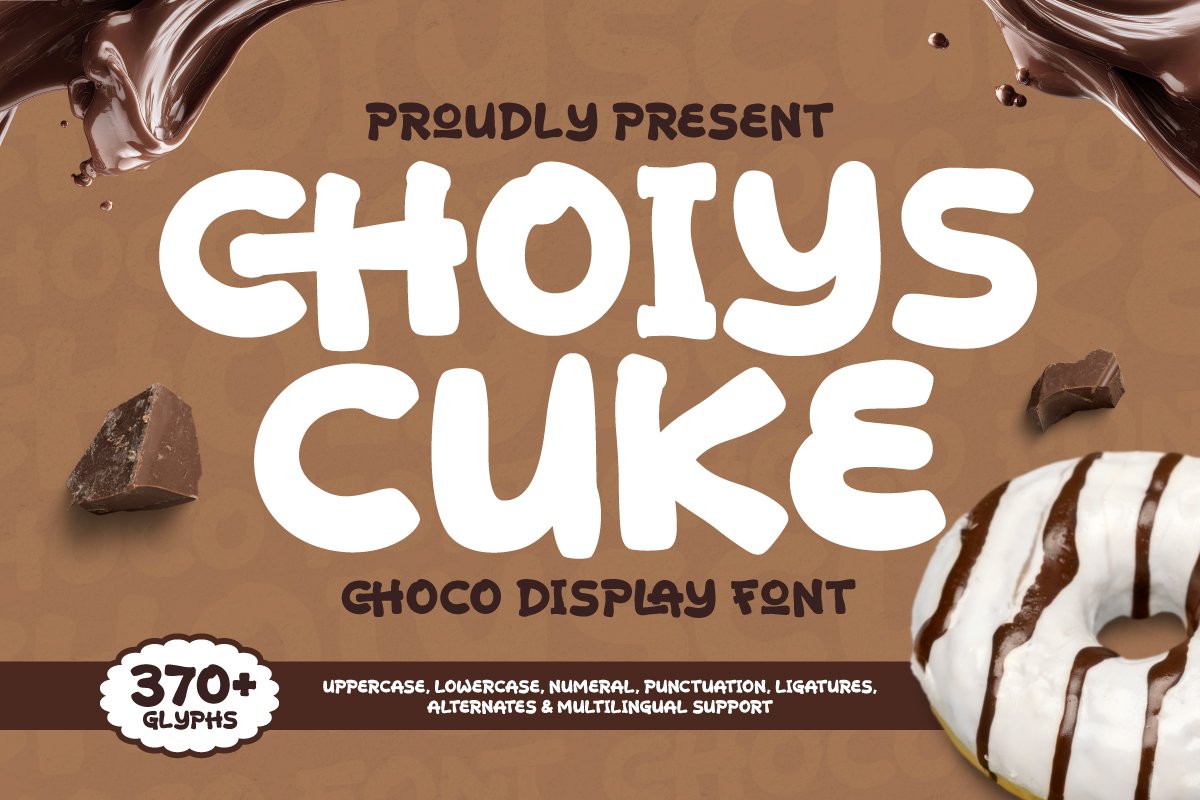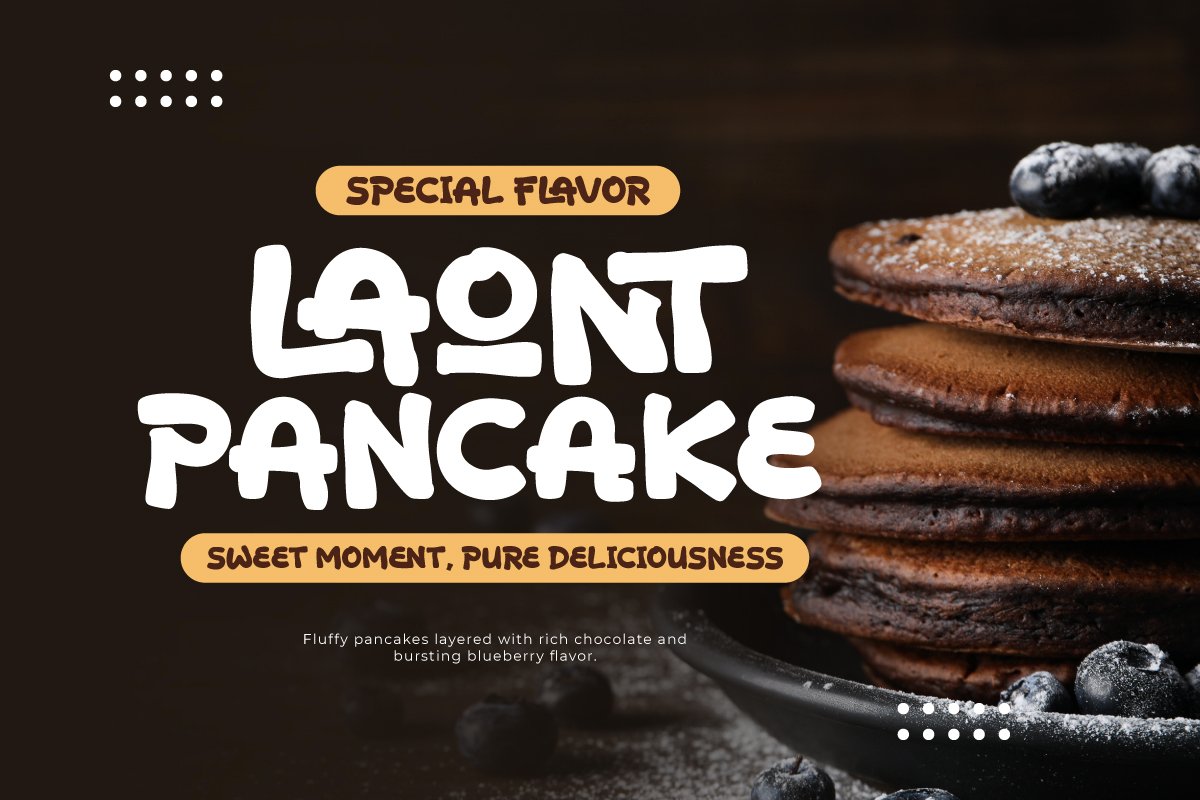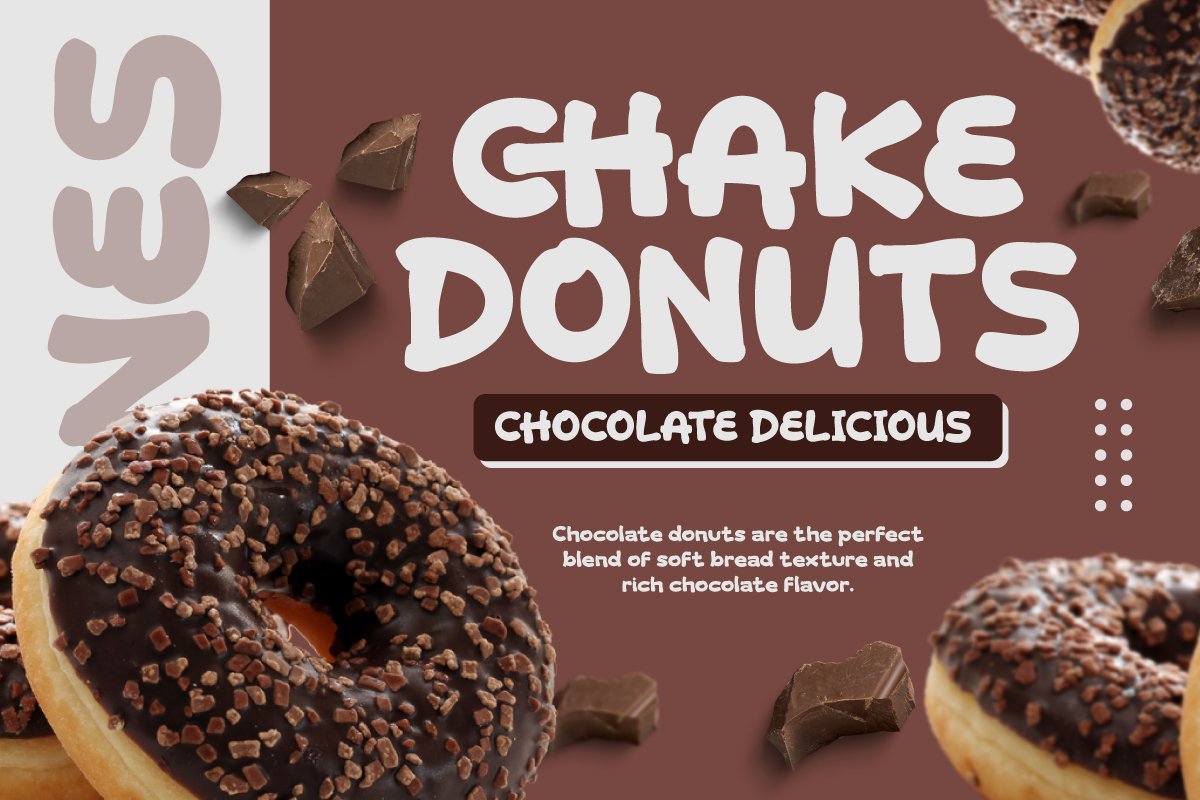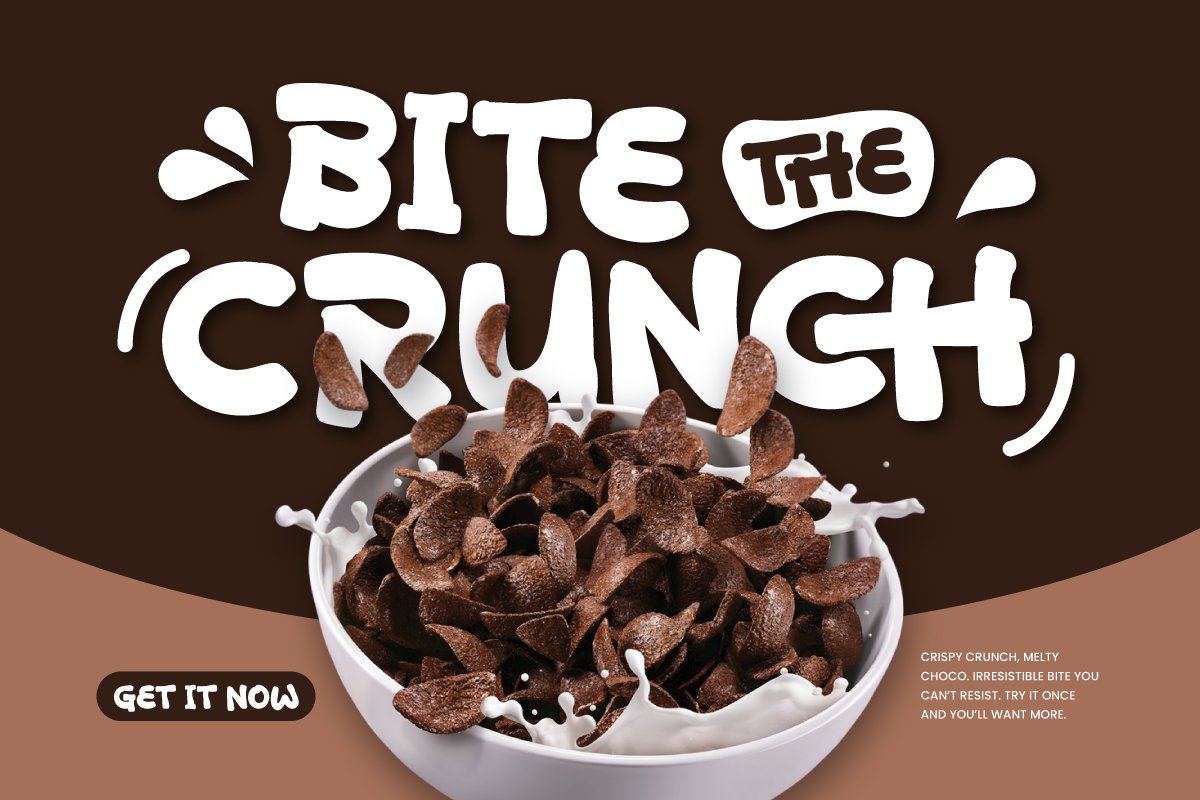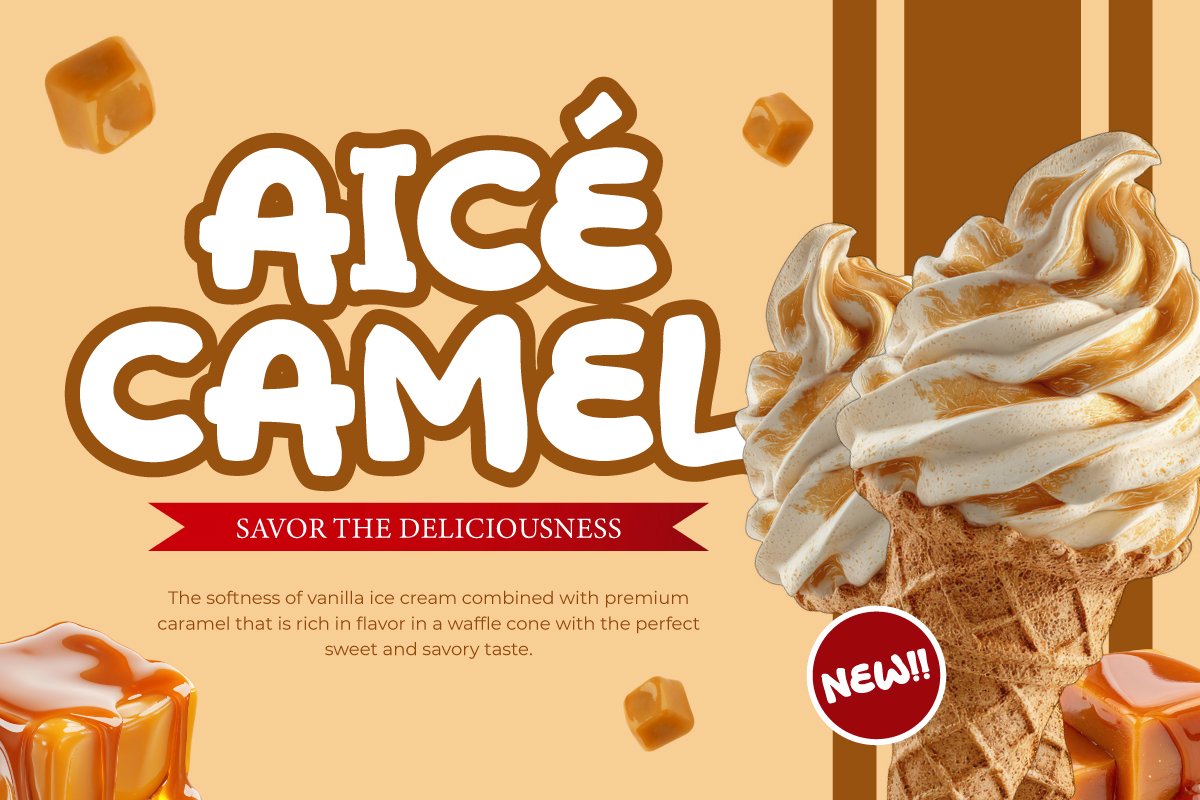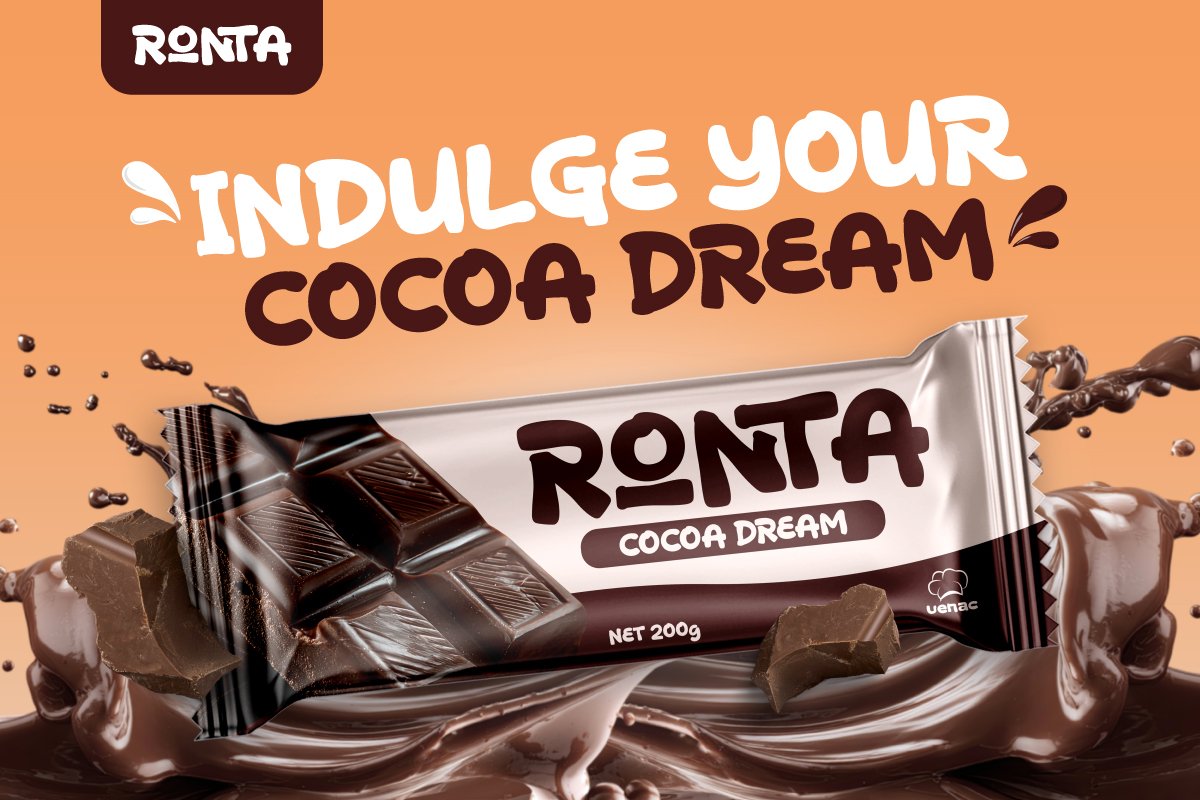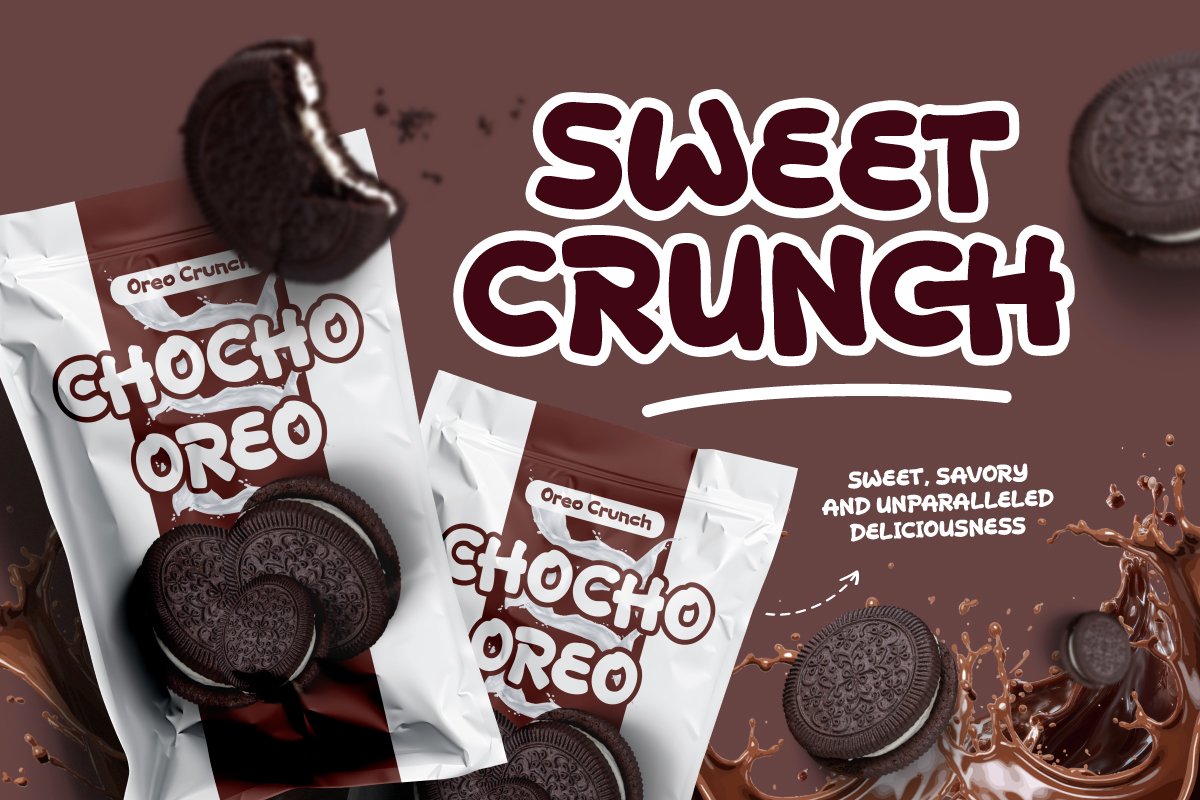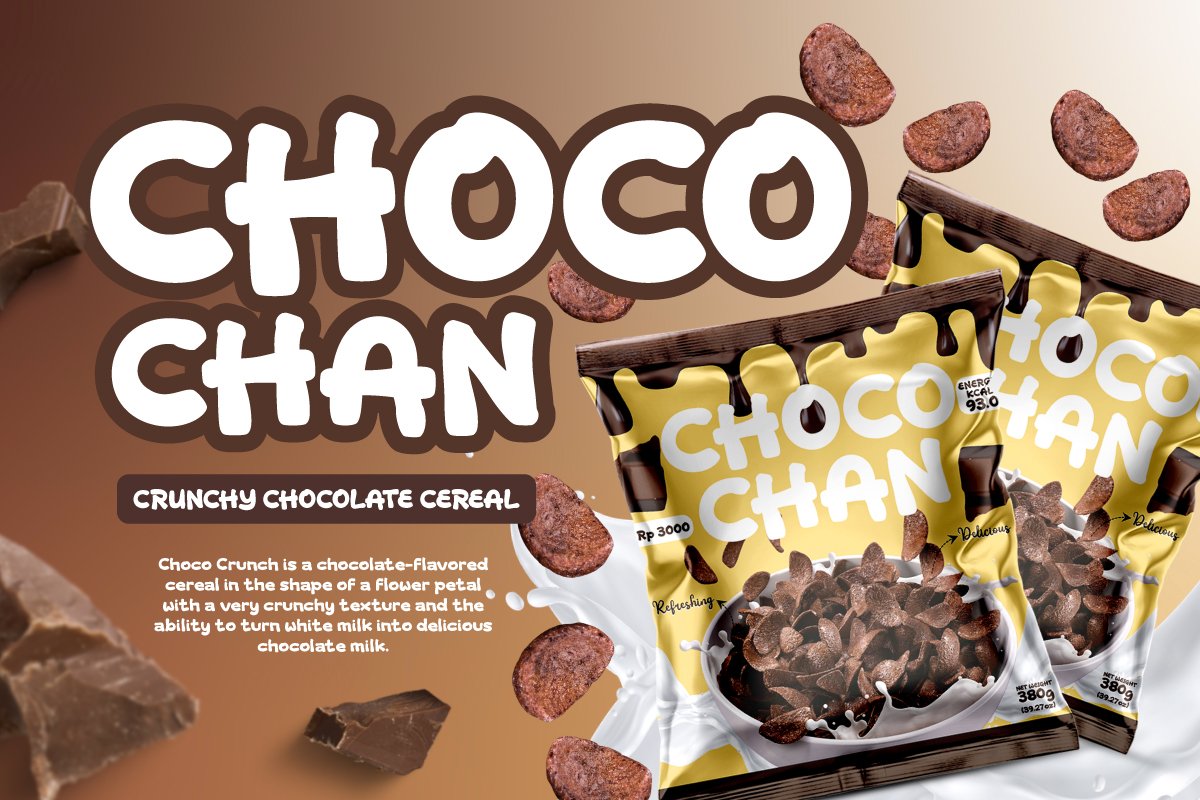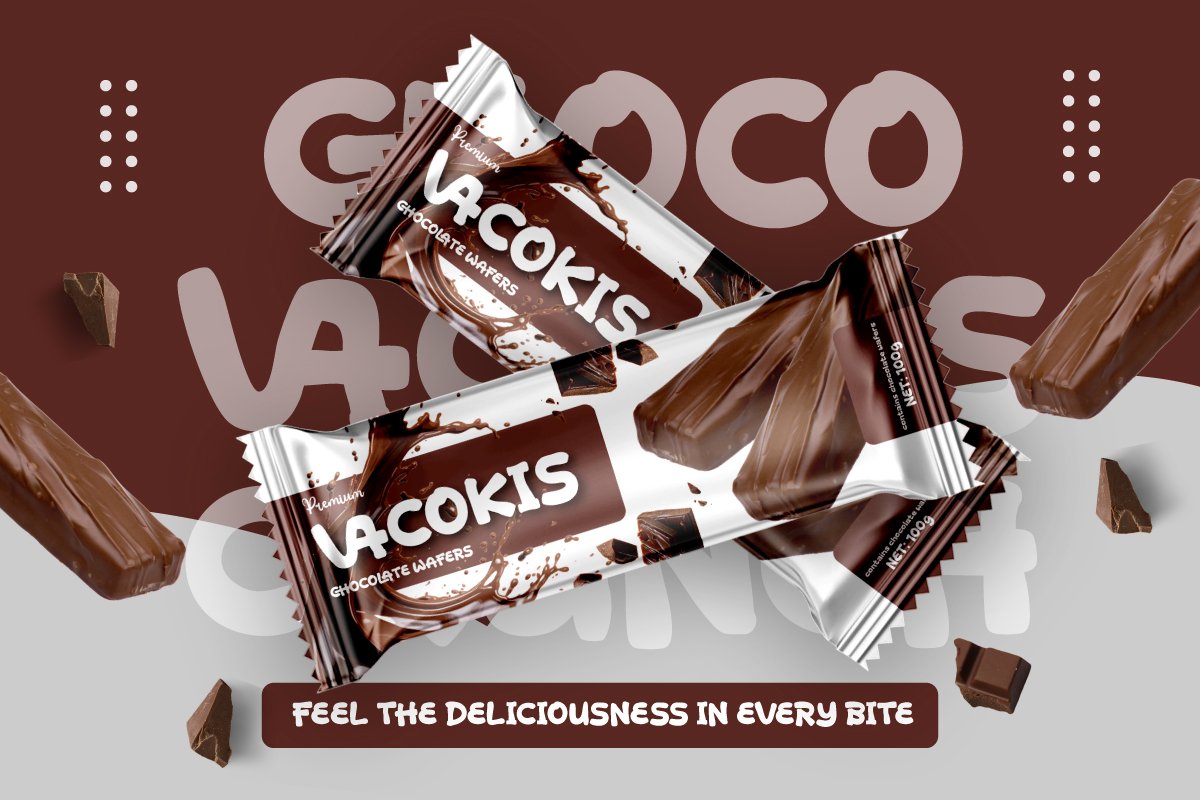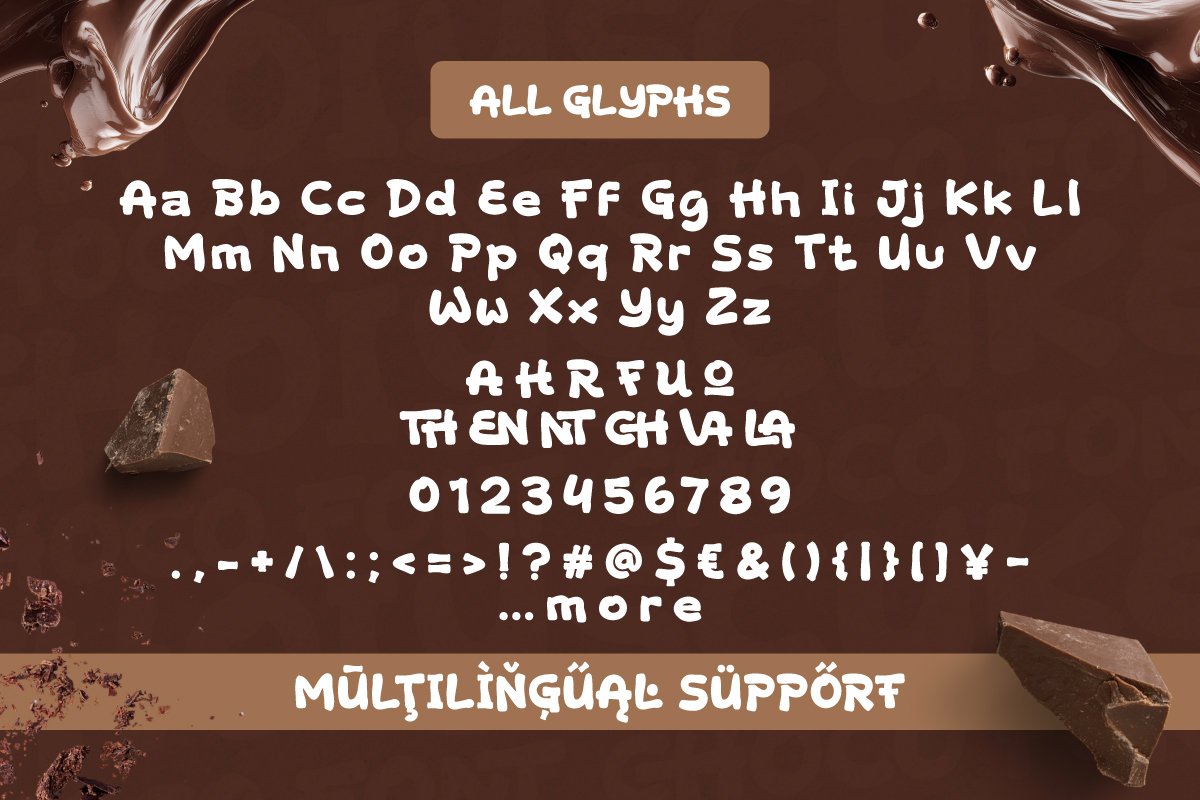
Choiys Cuke – Choco Display Font
Choiys Cuke is a Choco Display Font specifically designed to captivate the F&B (Food & Beverage) market. Featuring ultra-rounded, bubbly, and bold letterforms, this font represents the soft and appetizing texture of sweet treats. Its characteristics are ideal for the Snack & Confectionery industry aiming to build a friendly and fun product image.
This typography carries a puffy aesthetic that psychologically provides a sense of comfort, perfectly suited for Daily Break-time Snack themes. Its expressive yet clearly legible letter structure ensures product names stand out on Chocolate Bar packaging. Choiys Cuke provides a visual balance between the cheerfulness of a snack and the professionalism of modern retail packaging design.
As a practical design solution, Choiys Cuke is highly effective when applied to product labels, culinary promotional posters, and bakery visual identities. Its ability to create a “delicious” visual impression helps products become more recognizable to consumers on store shelves. This font is a valuable asset for designers looking to bring a strong, warm, and engaging personality to daily food design projects.